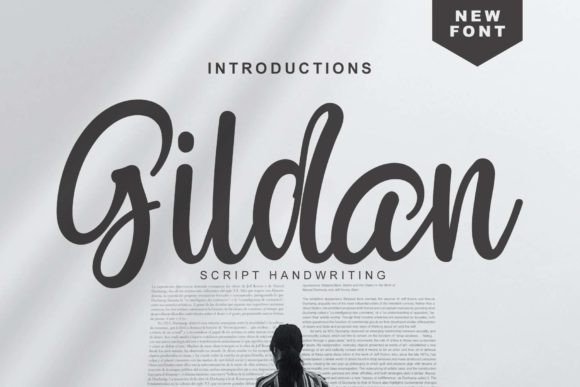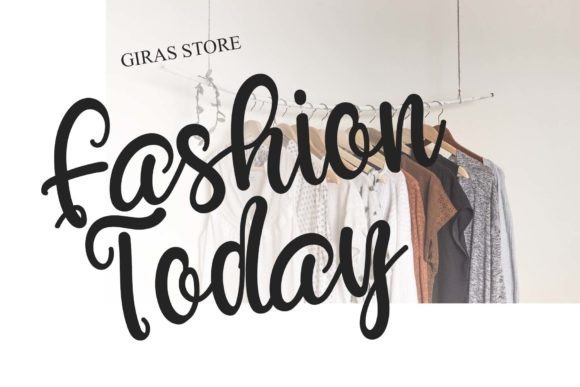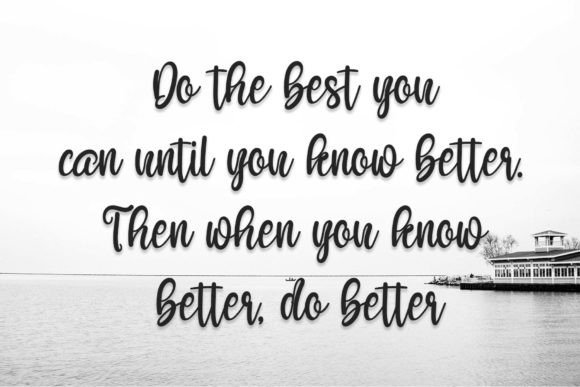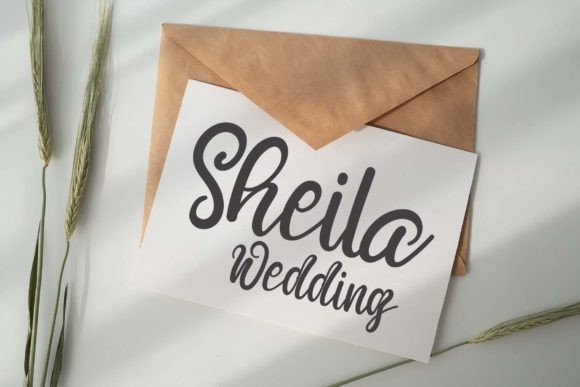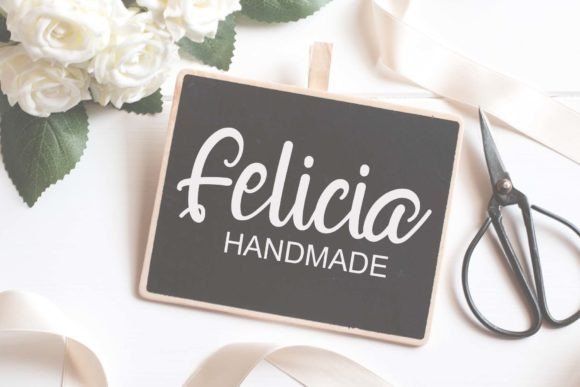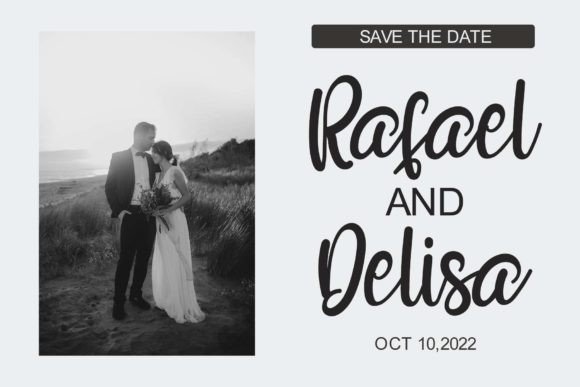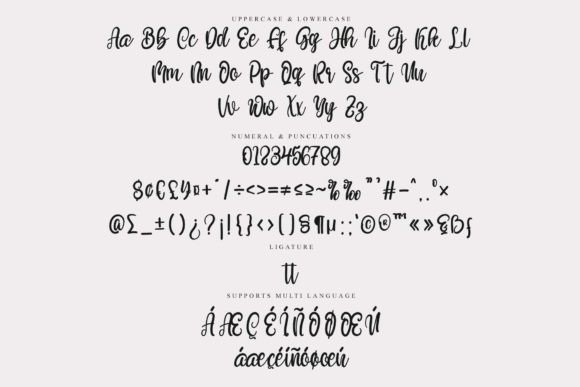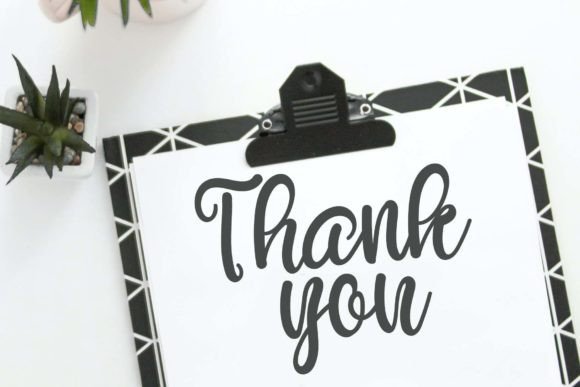
Gildan Font
About Gildan Font
**Gildan Font: Adding a Sweet and Cursive Touch to Your Designs**
Meet Gildan, a delightful cursive handwritten font that brings a touch of sweetness to your creative projects. With its gentle and elegant style, Gildan is a font that can elevate various design ideas. Here’s why Gildan stands out:
**Sweet Elegance:** Gildan font is the epitome of sweet elegance. Its gentle strokes and graceful curves add a touch of sophistication to your designs.
**Versatile Charm:** Gildan’s versatile charm makes it suitable for a wide range of design applications, including branding, logos, wedding materials, greeting cards, fashion projects, lookbooks, marketing promotions, and more.
**Joyful and Romantic:** This font carries a joyful and romantic essence that effortlessly infuses your projects with a delightful and love-filled atmosphere.
**Casual Yet Fancy:** Gildan strikes the perfect balance between a casual and fancy aesthetic. It’s ideal for designs that need to look both stylish and approachable.
**Fit for Branding:** Elevate your branding with Gildan. Its elegance and charm make it an excellent choice for creating a brand identity that leaves a lasting impression.
**Perfect for Weddings:** Gildan’s romantic touch makes it a perfect choice for wedding invitations, save-the-date cards, and all things related to tying the knot.
**Gorgeous Lookbook:** Create stunning lookbooks that showcase your products or ideas with Gildan’s gorgeous and eye-catching lettering.
**Enhance Greeting Cards:** Make your greeting cards more special by using Gildan to add a personal and stylish touch to your messages.
**Fashion Forward:** If you’re in the fashion industry, Gildan can help you achieve a fashion-forward look in your promotional materials, catalog designs, and more.
**Marketing Magic:** Use Gildan to craft marketing materials that captivate your audience with an elegant yet approachable vibe.
**Elegant Branding:** Gildan is perfect for establishing an elegant and sophisticated brand presence in various industries.
**Capture Attention:** With Gildan, your designs will capture attention and stand out with their unique blend of elegance and charm.
**Personal and Romantic:** Whether you’re designing for personal or professional purposes, Gildan adds a personal and romantic touch that elevates your creations.
**Unleash Creativity:** Unleash your creativity with Gildan as your creative companion, helping you craft designs that are both visually appealing and emotionally resonant.
**Create with Confidence:** Create your projects with confidence, knowing that Gildan’s sweet and cursive lettering will enhance their overall appeal.
**Express Your Style:** Express your style and vision with Gildan, a font that effortlessly adapts to your creative direction.
**Timeless Appeal:** Gildan’s timeless appeal ensures that your designs remain relevant and appealing to your audience.
**Experience Sweet Elegance:** Experience the sweet elegance of Gildan as it transforms your designs into captivating and stylish works of art.
**Add Gildan to Your Toolkit:** Elevate your design projects by adding Gildan to your font toolkit. It’s the font that brings a touch of sweetness and sophistication to your creative work.
**Let Gildan Inspire:** Let Gildan inspire your creations, making them more delightful, elegant, and memorable.
**Design with Gildan Today:** Start designing with Gildan today and discover how it can infuse your projects with a sweet and cursive elegance that captivates hearts and enhances your visual storytelling.